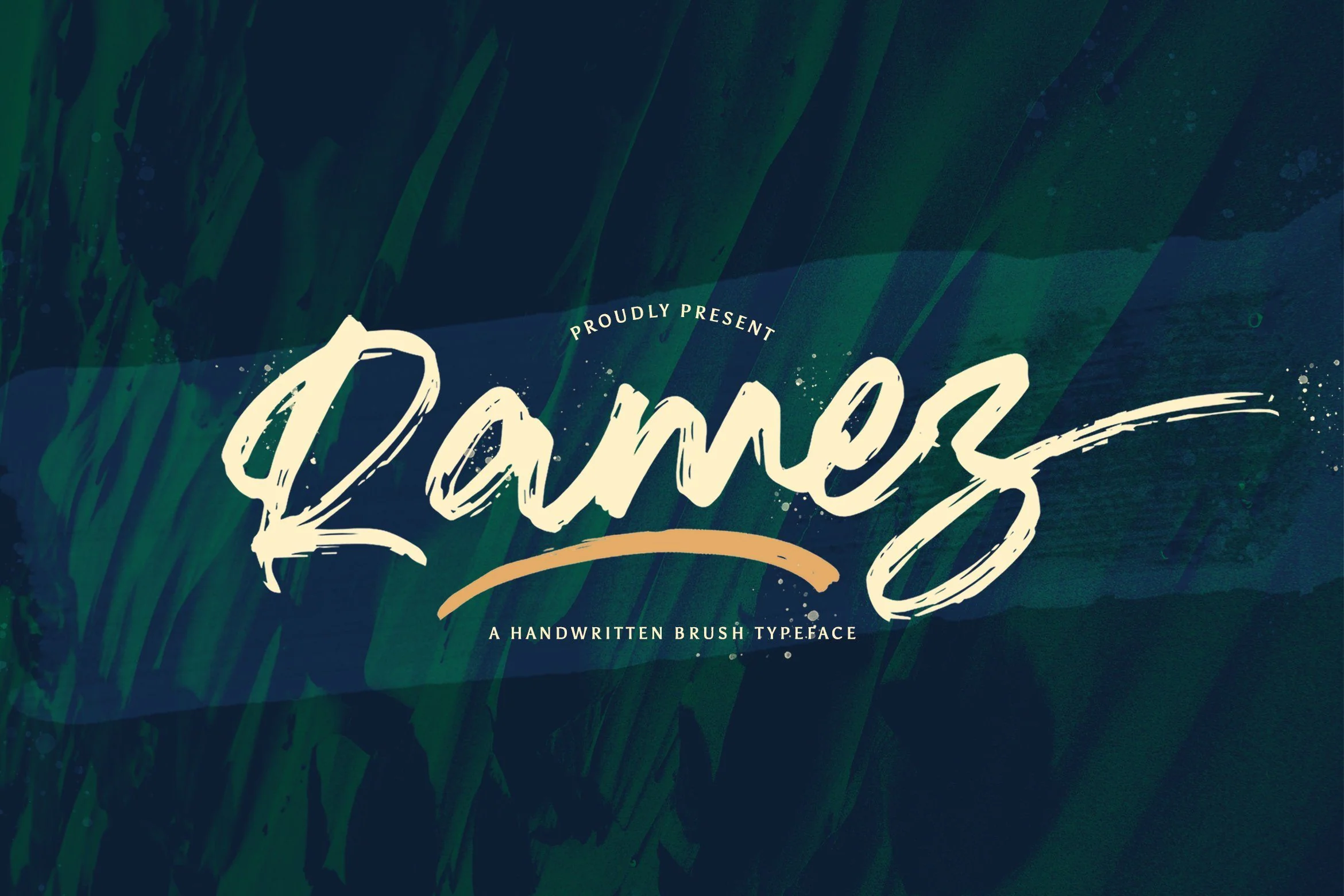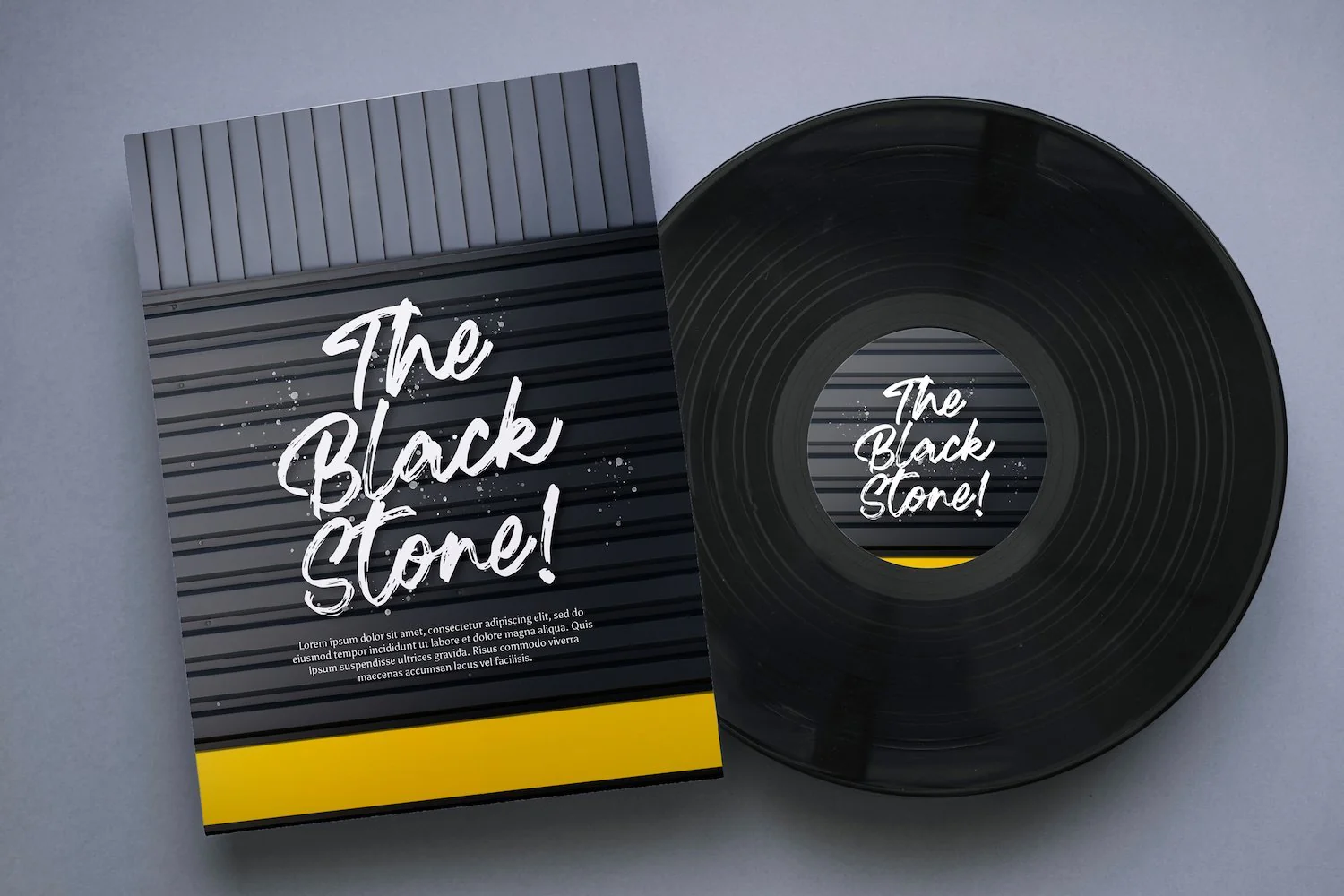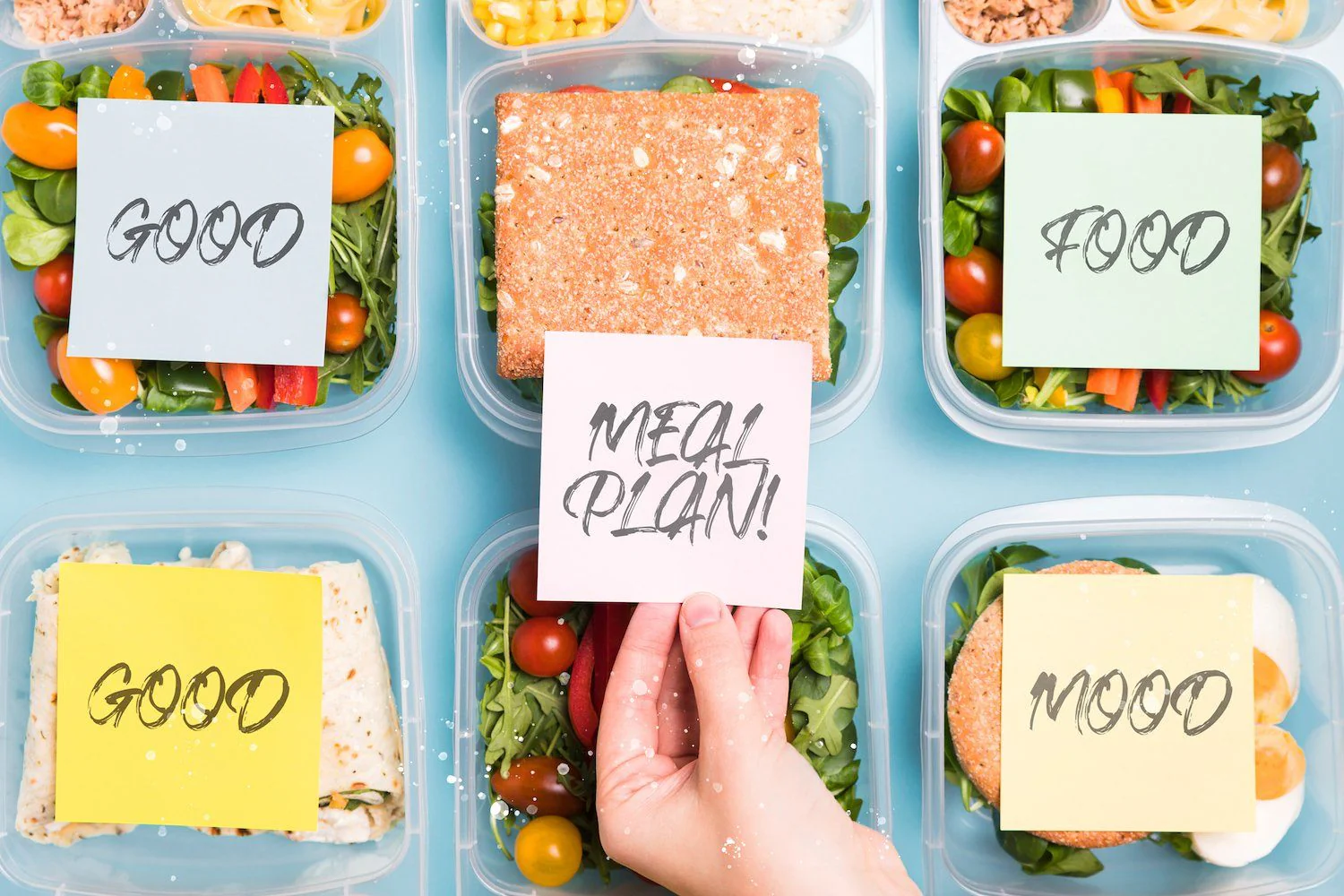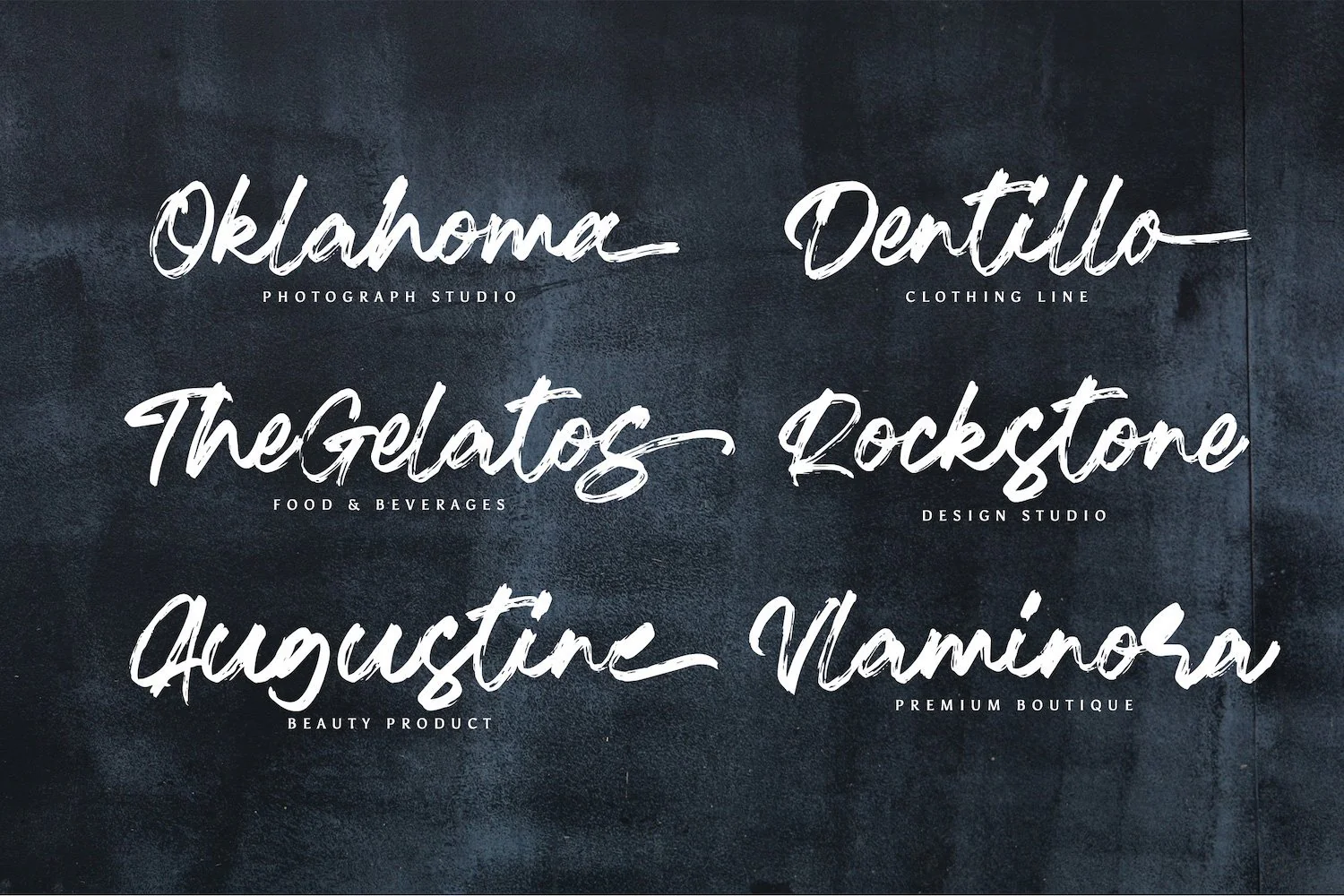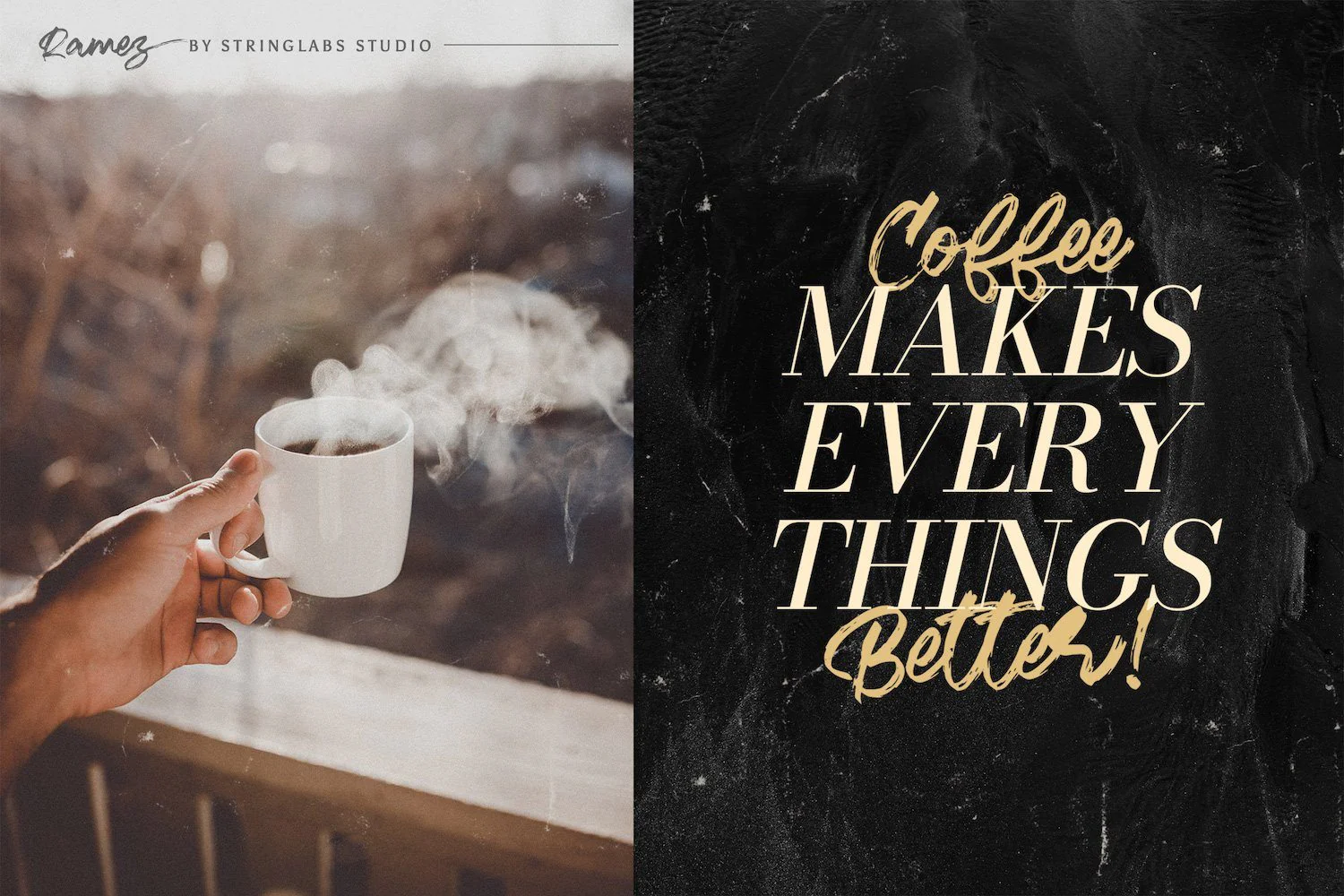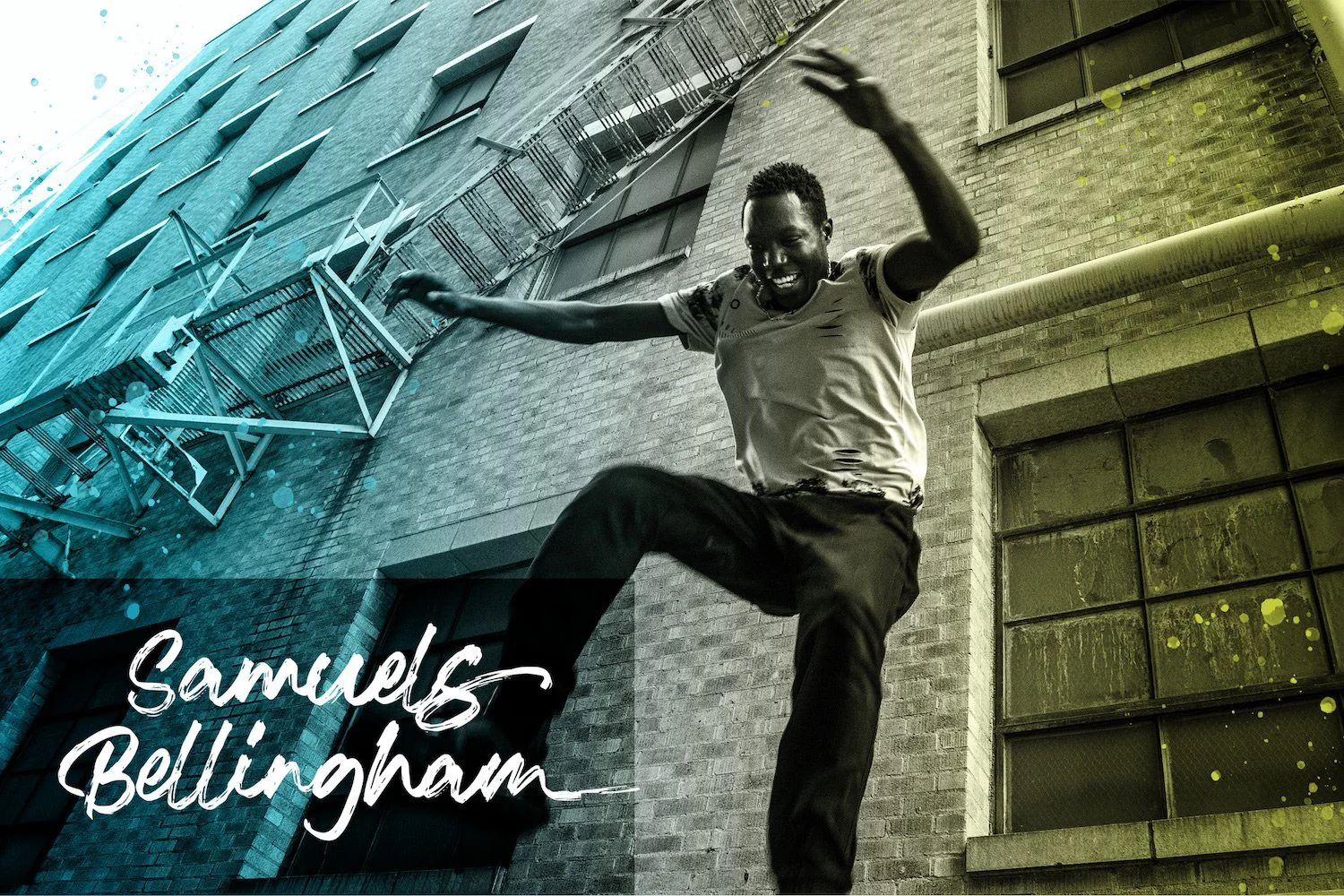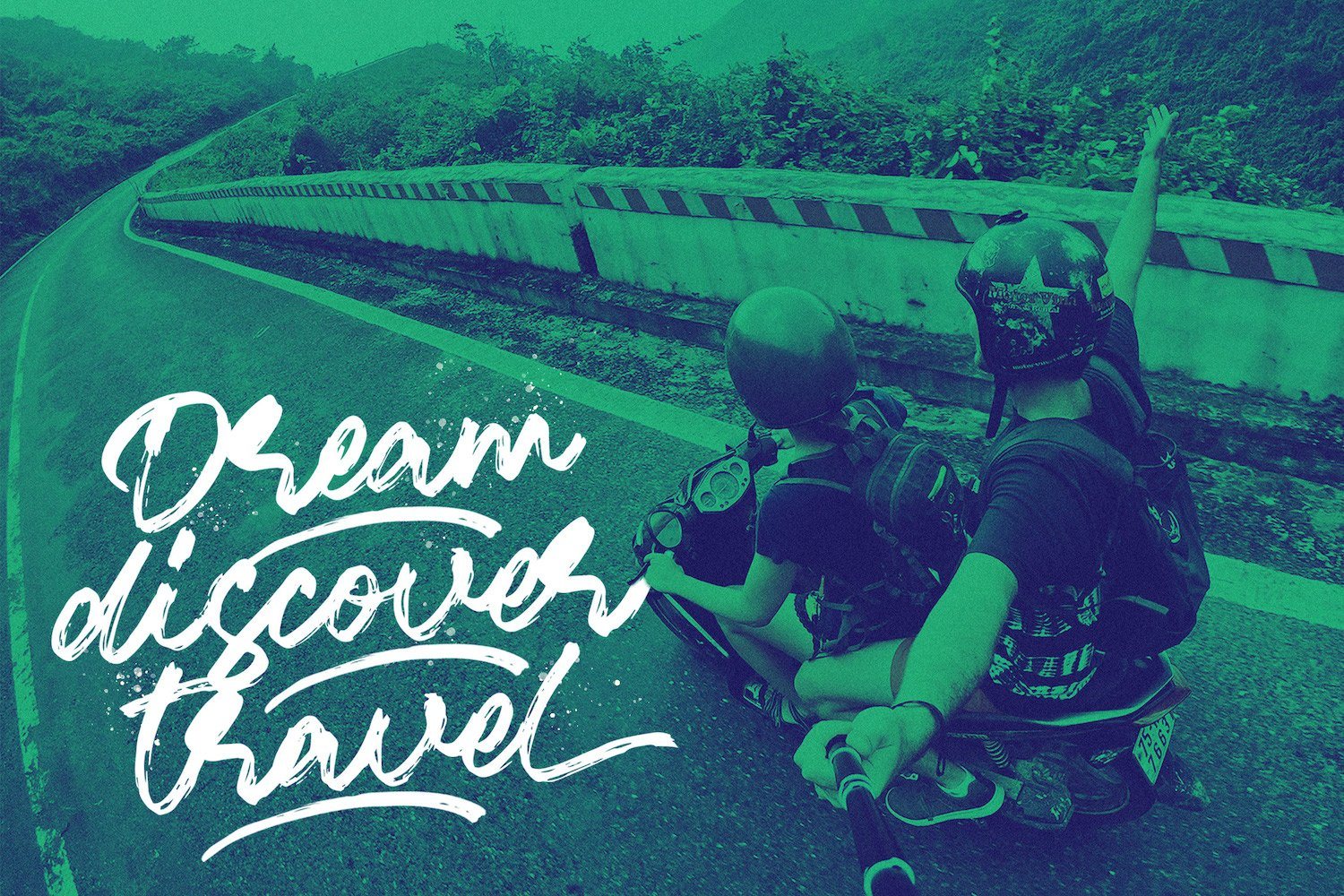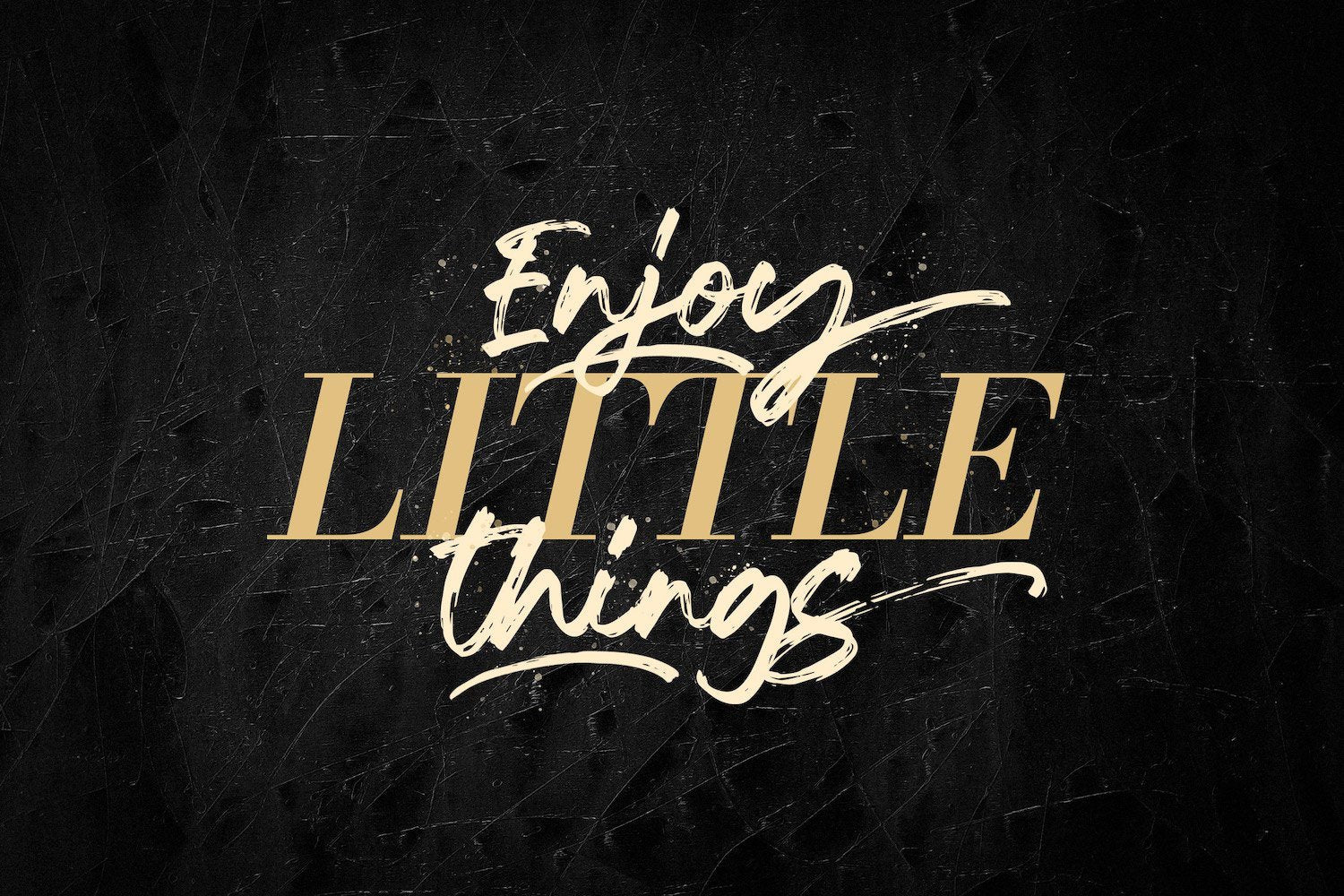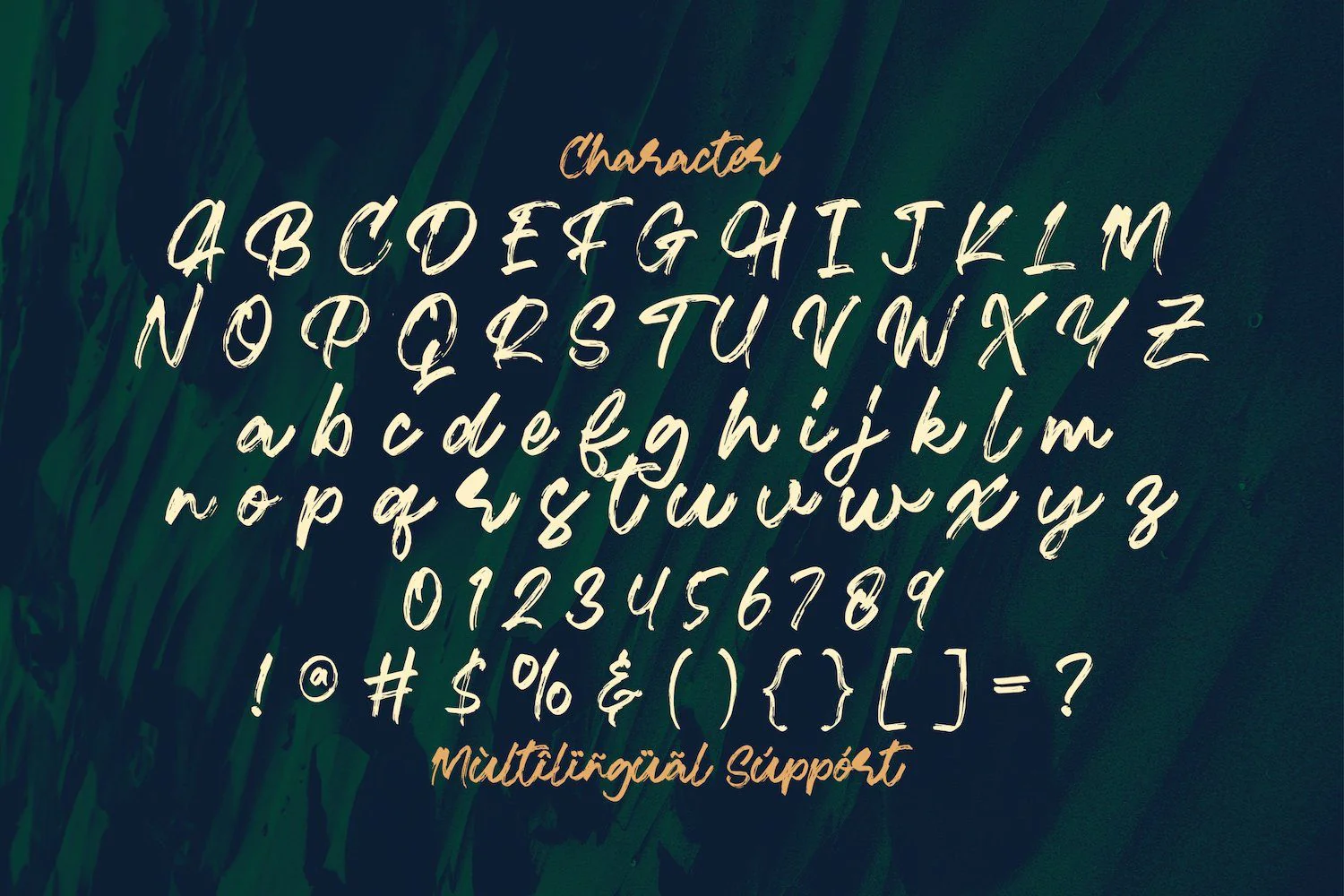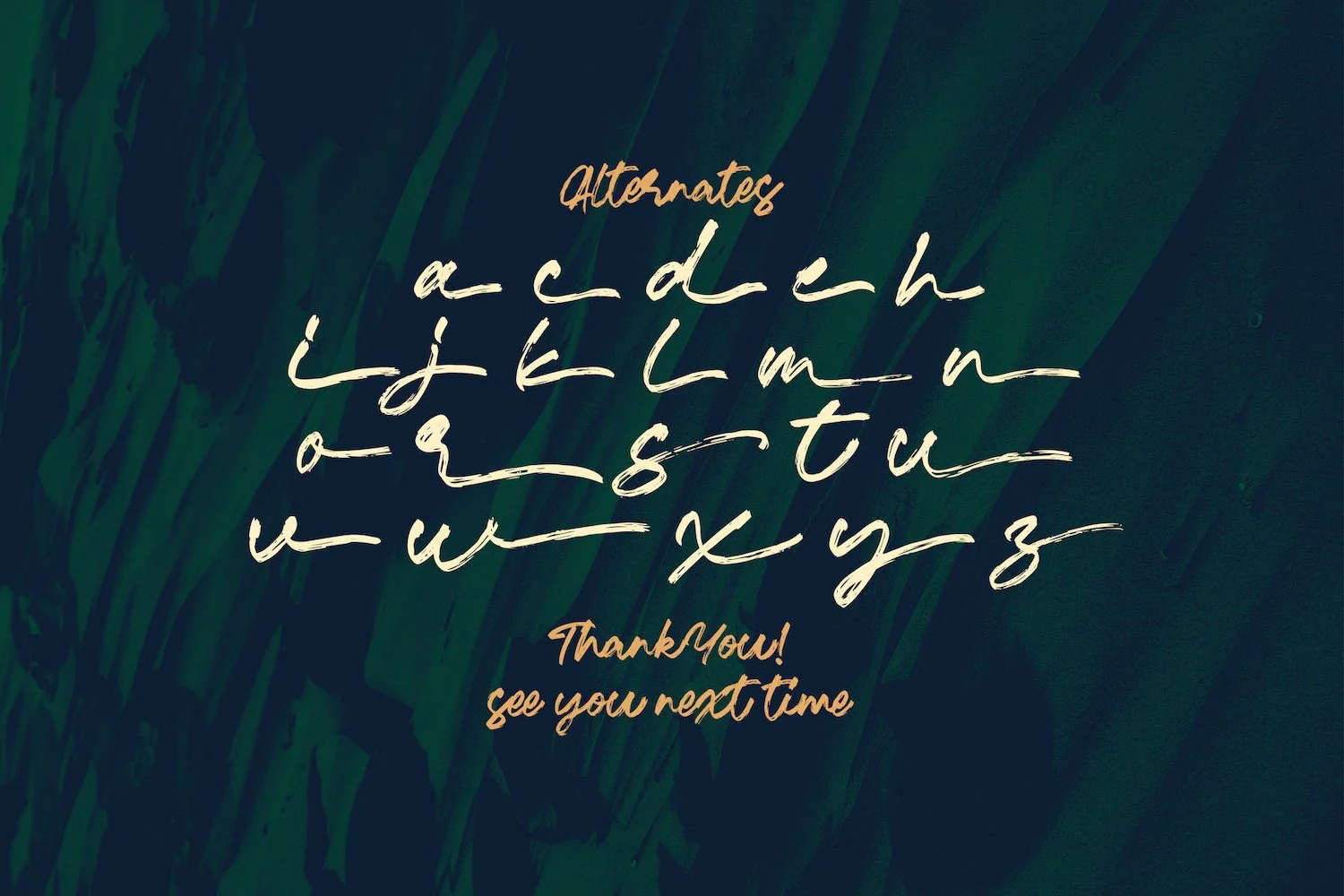
Ramez - Textured Brush Font
Introducing Ramez - Textured Brush Font
Ramez is a textured handbrush font. Get inspired by its unique and beautiful style and add it to your favorite designs!
Introducing Ramez - Textured Brush Font
Ramez is a textured handbrush font. Get inspired by its unique and beautiful style and add it to your favorite designs!